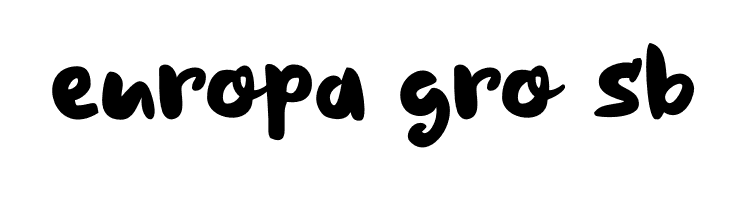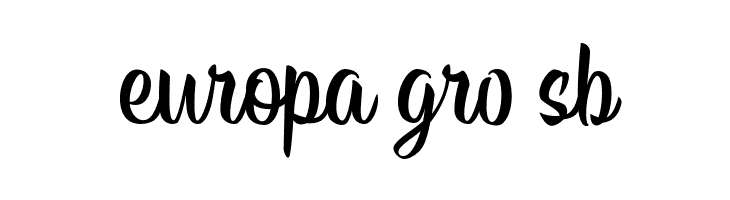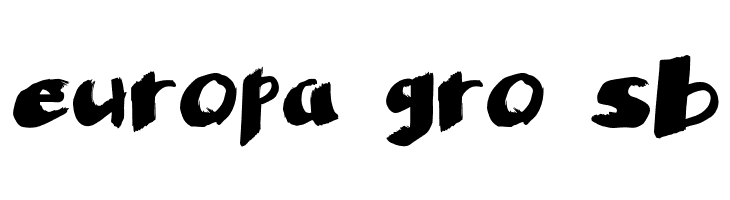
( Fonts by Måns Grebäck )
A fluid and elegant script font with dynamic cursive letterforms.
( Fonts by Hanoded )
A playful, bold font with rounded, bubbly characters and a whimsical style.
A modern, geometric sans-serif font with balanced proportions and clean lines.
A bold slab serif font with a modern yet classic appeal.
( Fonts by Liz Hoffmann )
A bold, expressive font with a hand-painted, dynamic style.
A bold, geometric font with a modern, angular design.